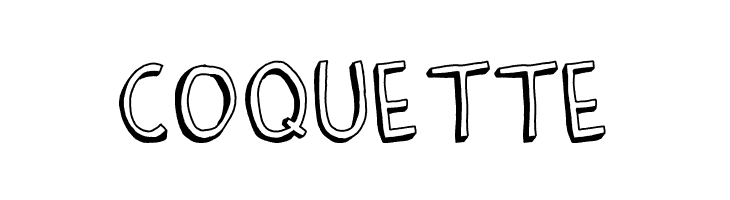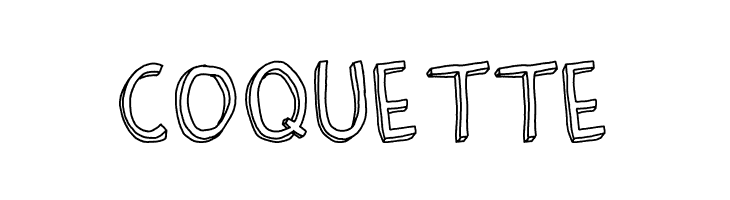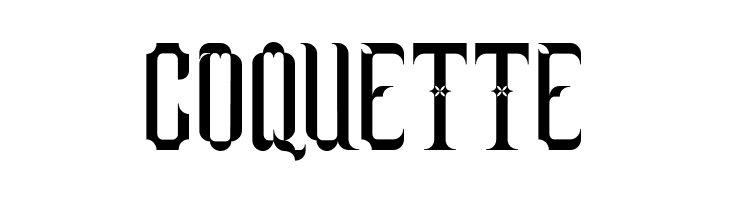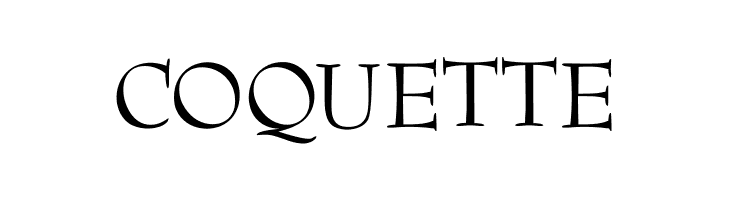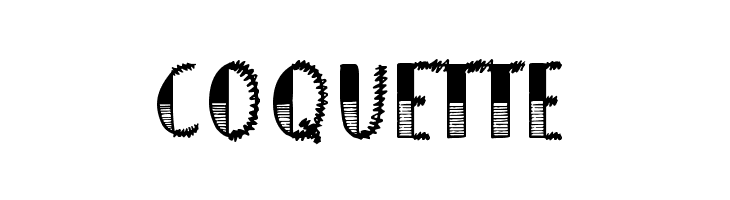
A bold, decorative font with a unique striped pattern for a modern, impactful look.
A decorative serif font with elegant flourishes and artistic details.
A bold, decorative serif font with elegant curves and sharp serifs.
A flowing, calligraphic script font with elegant, interconnected letters.
A decorative, playful font with tall, narrow characters and elegant flair.
A graceful script font with fluid, interconnected strokes and elegant flourishes.
An elegant and decorative script font with intricate swirls and loops.
A sophisticated, elegant handwritten font with flowing, interconnected letterforms.
A bold, block-like font with rounded edges, perfect for impactful designs.
A bold, blocky font with a vintage yet modern appeal, ideal for impactful designs.
A bold, artistic font with a hand-drawn, whimsical style.
A whimsical, hand-drawn font with playful curves and artistic flair.
An elegant, flowing script font with graceful curves and a sophisticated style.
A cursive, handwritten-style font with elegant, flowing letters.
A classic serif font with elegant curves and refined structure.
A barcode-inspired font with vertical lines creating a modern, futuristic look.
A modern, rounded font with a playful and approachable style.
A casual, handwritten cursive font with smooth, flowing strokes.
A dynamic, handwritten font with fluid strokes and a modern, artistic vibe.
A playful and elegant script font with a handwritten style.
A flowing, cursive font with a natural handwriting style.
A classic, elegant script font with flowing, cursive letterforms.
Elegant cursive script with flowing curves and ornate flourishes.
A bold and ornate blackletter font with intricate detailing.
A bold, intricate Blackletter font with medieval flair.
A decorative blackletter font with characters enclosed in circular borders.
A bold blackletter font with sharp, angular lines and intricate detailing.
A playful, hand-drawn font with bold, outlined letters and a whimsical style.
A playful, hand-drawn font with bold, uneven strokes and a casual style.
A bold, decorative font with zigzag edges and striped interiors.
A rugged, distressed font with a bold, edgy appearance.
A classic serif font with sharp serifs and elegant proportions, ideal for traditional and sophisticated designs.